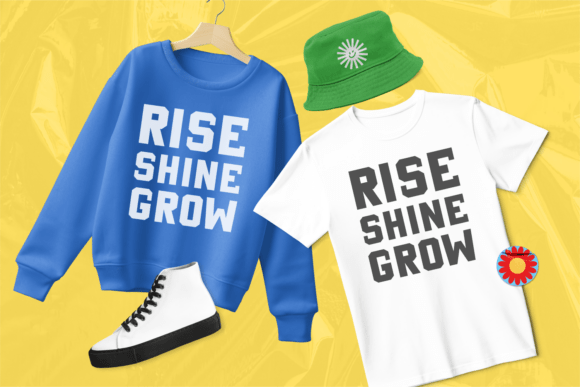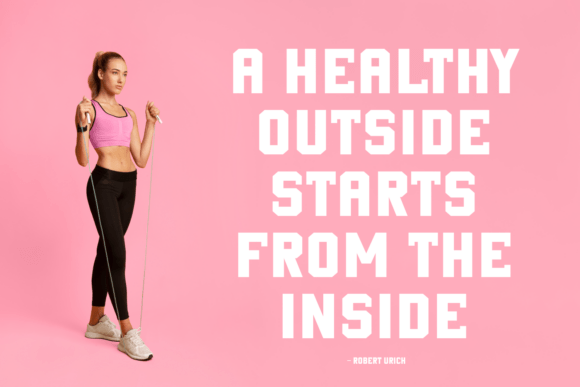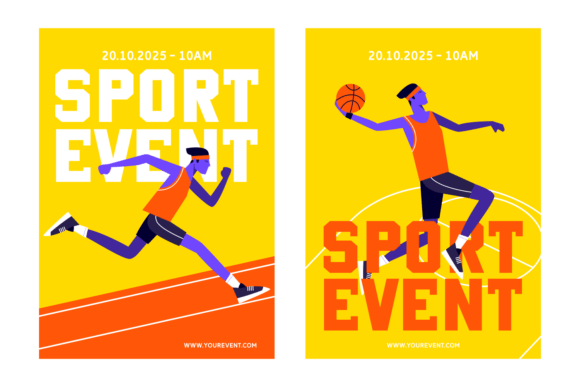
Introducing Finish Lines: The Ultimate Font for Creative Projects
I’ll never forget the time I was working on a project for a client who needed a font that could convey a sense of excitement and energy. I had spent hours scouring the internet for the perfect typeface, but nothing seemed quite right. That was until I stumbled upon Finish Lines, an incredibly versatile ensemble of typefaces that has since become a staple in my font library.
A Game-Changing Font for Designers, Crafters, and Hobbyists
Whether you’re a seasoned designer, a crafter, or a creative hobbyist, Finish Lines has the potential to elevate any creation. This font is perfect for a wide range of projects, from bold headlines and titles to elegant body text. Its versatility is unmatched, making it an incredible asset to your font collection.
An Honest Review of Finish Lines
- ✨ Clean and modern design: The lines are crisp, and the curves are smooth, making it perfect for a wide range of projects.
- ✅ Highly legible: Even at small sizes, Finish Lines remains easy to read, making it perfect for body text.
- 💡 OpenType features: This font comes with a range of OpenType features, including stylistic alternates, ligatures, and glyphs.
While Finish Lines is an amazing font, there are a few things to keep in mind:
- ⚠️ Limited italic options: While the font comes with a range of styles, the italic options are somewhat limited.
- 🤔 Glyph compatibility: Some glyphs may not work seamlessly with all platforms or software.
The Backstory Behind Finish Lines
Finish Lines was designed with the goal of creating a versatile and highly legible font that could be used for a wide range of projects. The designer, inspired by the thrill of crossing the finish line, aimed to capture the sense of excitement and energy in a font that would be both clean and modern.
Q: Is Finish Lines suitable for body text?
Yes, Finish Lines is highly legible and suitable for body text, even at small sizes.